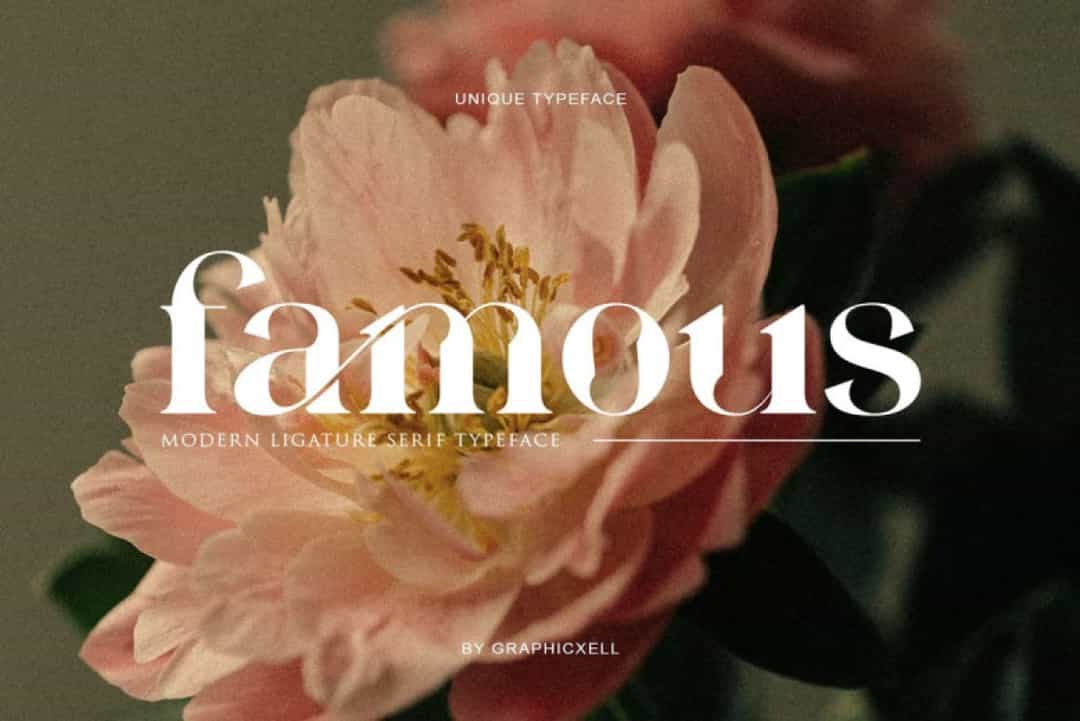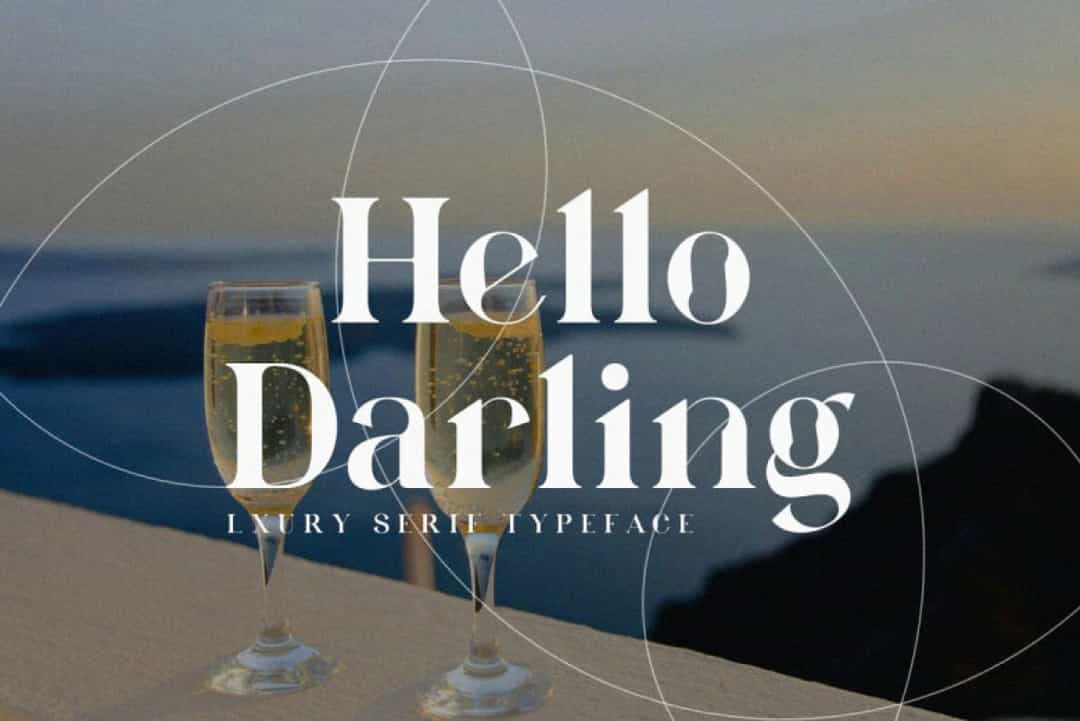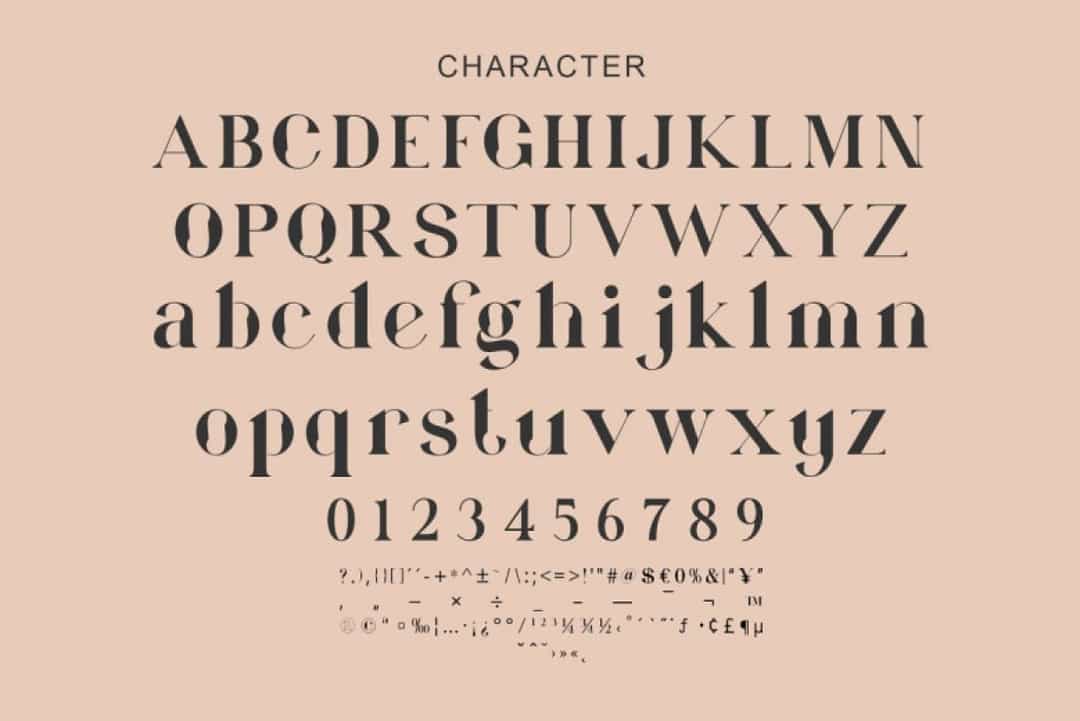
Discover Famous Ligature Font, part of the Serif collection—a versatile and unique font perfect for adding a personal touch to your projects. Download it for free and enjoy crafting designs with style, from invitations to social media posts. This font is available exclusively for personal use, giving you the freedom to create without limits. Unlock your creativity with Famous Ligature Font today!
Favoured with the famed Ligature Serif Font, which draws its inspiration from iconic minimalist logo, perfect for designing templates brochures videos and brochures logos, advertising branding invitations layout, designing beautiful crafting attractive design and much more.